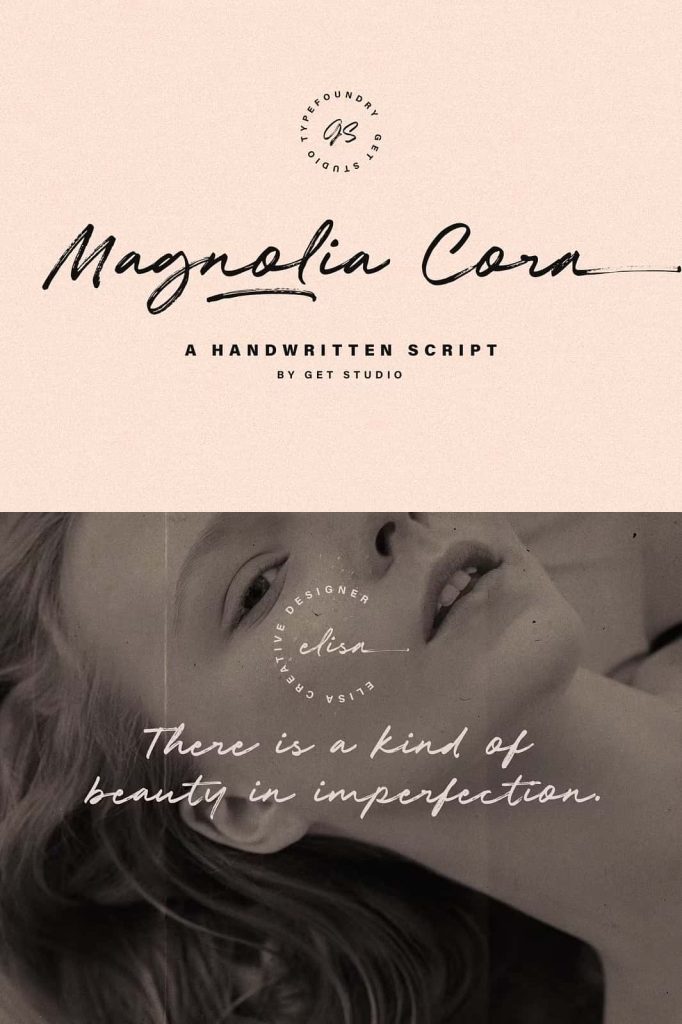
Magnolia Cora ScriptleastedMay 16, 2025Fonts Introducing Magnolia Cora Script, a handwritten font with a casual and strong character crafted with real brush textures Download